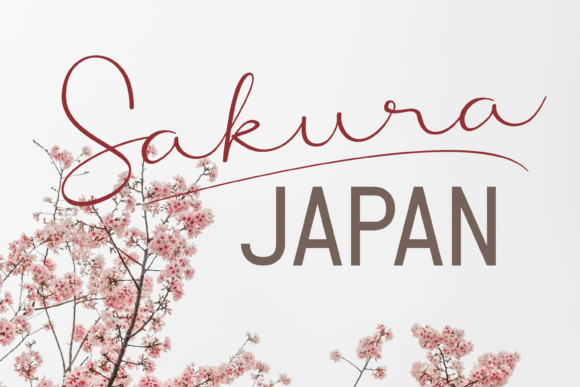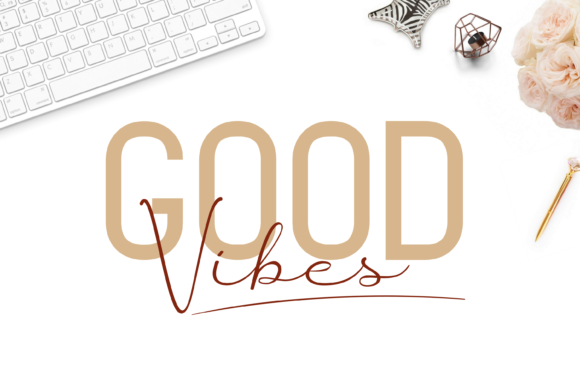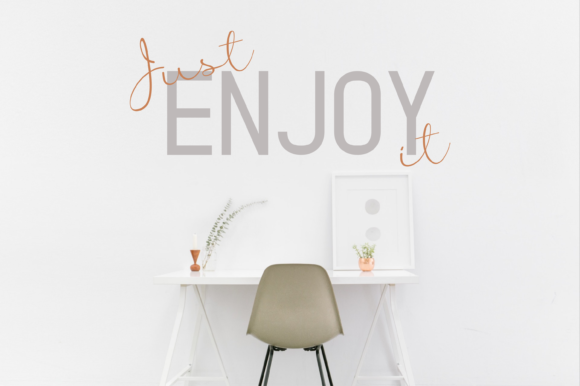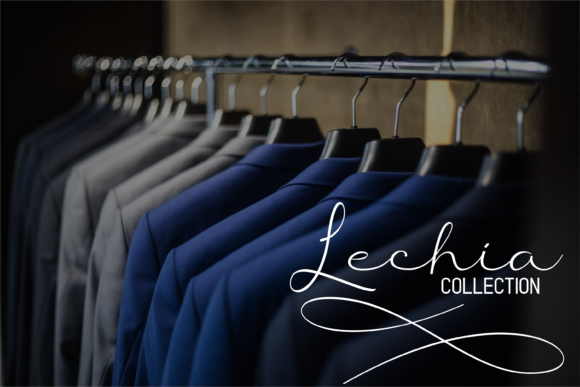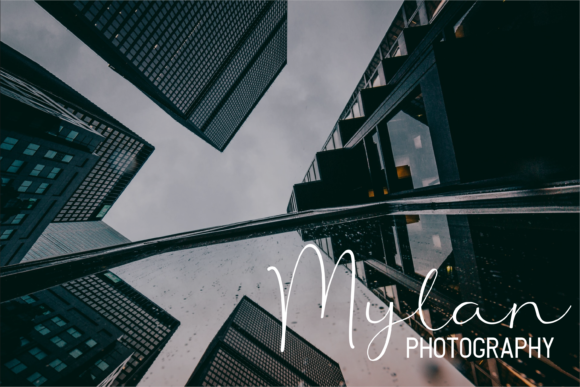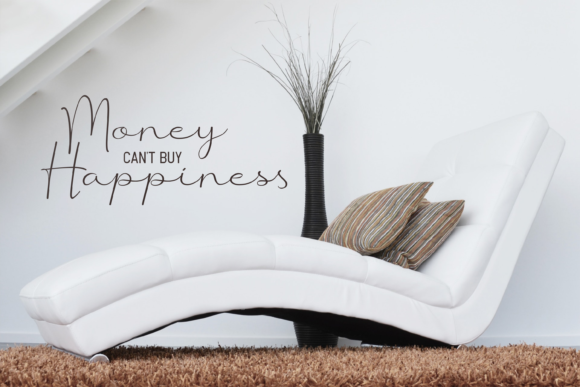
Introducing the Grand Aprilliant Duo Font: Elevate Your Designs with Elegance and Versatility
In the realm of typography, a font duo that offers both elegance and versatility is a treasured find for designers and crafters alike. The Grand Aprilliant Duo Font is a stunning pair of fonts that can instantly elevate your designs, whether you’re working on wedding invitations, logos, greeting cards, or any other creative project. This beautiful duo consists of two complementary styles: a signature script and a sans serif font, which can be paired together to create visually appealing and harmonious designs.
The Perfect Pair: Signature Script and Sans Serif
The Grand Aprilliant Duo Font is thoughtfully designed to offer the best of both worlds. The signature script font exudes elegance and sophistication, making it perfect for designs that require a touch of luxury and refinement. Its fluid strokes and beautiful ligatures add a level of detail and craftsmanship that can make your designs stand out.
On the other hand, the sans serif font in the duo offers a clean, modern aesthetic that provides a beautiful contrast to the script font. Its simplicity and clarity make it ideal for designs that require readability and a professional look. Whether you’re designing a logo, a brochure, or a website, this font ensures that your text is easy to read and understand.
The versatility of the Grand Aprilliant Duo Font makes it suitable for a wide range of design applications. Here are some of the many ways you can use this beautiful font duo:
- Weddings: Create stunning wedding invitations, save-the-date cards, and wedding stationery that sets the tone for a beautiful and memorable event.
- Logos: Design elegant and professional logos for businesses, events, or personal brands that make a lasting impression.
- Greeting Cards: Add a personal touch to your greeting cards, whether it’s for a birthday, anniversary, or holiday, with beautifully designed text.
- Branding: Develop a cohesive brand identity with the Grand Aprilliant Duo Font, perfect for businesses looking to establish a sophisticated and modern image.
- Print Ads: Elevate your print advertisements with stylish and readable text that captures the attention of your target audience.
- Quotes: Design inspiring and motivational quotes with a touch of elegance, perfect for social media posts, blogs, or print materials.
- Signage: Create eye-catching signs for events, businesses, or directions with a font that is both stylish and easy to read.
- Magazines: Use the Grand Aprilliant Duo Font for article titles, headings, and body text to create a visually appealing and professional-looking publication.
Why Choose the Grand Aprilliant Duo Font?
With so many font options available, why should you choose the Grand Aprilliant Duo Font for your next design project? Here are a few compelling reasons:
- Elegance and Versatility: The combination of a signature script and a sans serif font offers endless possibilities for creative expression.
- High Readability: The sans serif font ensures that your text is easy to read, making it perfect for body text and captions.
- Unique and Memorable: The elegant script font adds a touch of sophistication and uniqueness to your designs, making them stand out from the crowd.
- Time-Saving: Having two complementary fonts in one duo saves you time and effort in searching for the perfect font pairing.
The Grand Aprilliant Duo Font is a valuable addition to any designer’s or crafter’s toolkit. Its elegant signature script and clean sans serif font offer a perfect balance of style and readability, making it suitable for a wide range of design applications. Whether you’re working on a wedding project, a branding campaign, or simply looking to elevate your design skills, this beautiful font duo is sure to inspire and impress. So why wait? Download the Grand Aprilliant Duo Font today and take your designs to the next level!